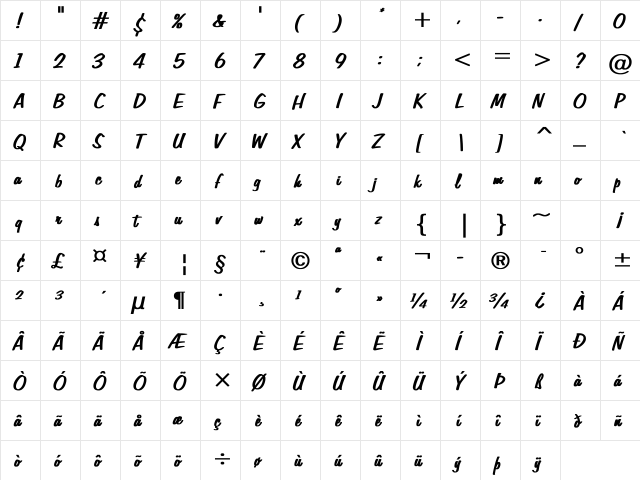
Freehand575 Bold Bold
Design Context for Freehand575 Bold Typeface
Freehand575 Bold brings a calligraphic fluidity to the page — its connecting strokes and expressive curves give it an unmistakably human quality. Its bold stroke weight gives it real presence on the page.
Font Pairing: Combine Freehand575 Bold with a simple geometric sans for maximum contrast — the tension between flowing curves and clean structure is a classic typographic pairing.
Pro Tip: Use Freehand575 Bold for short runs of text — names, titles, or taglines. Extended body copy in script faces tires the eye quickly.